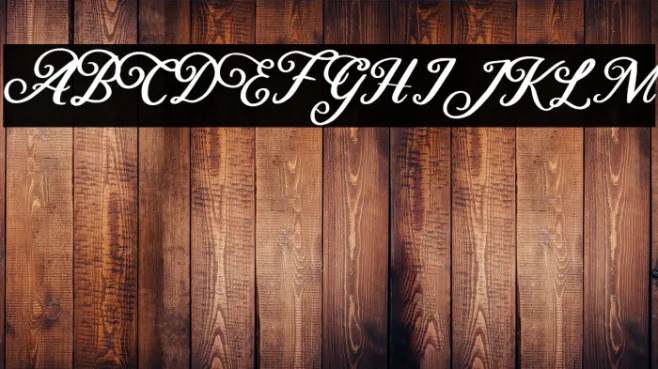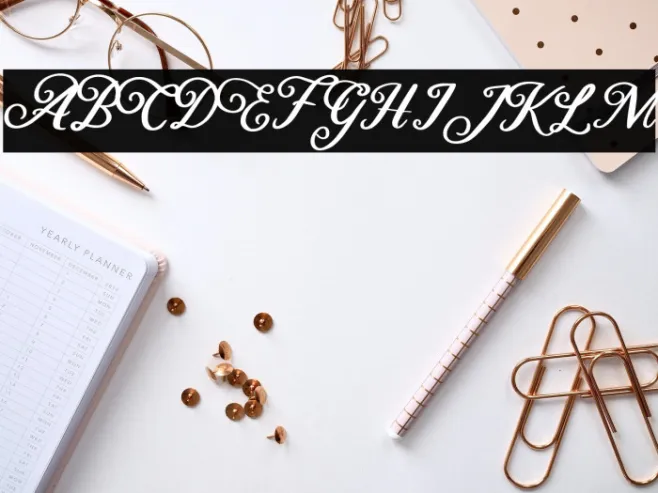
OllsonFREE Font
This font features an elegant and flowing script style, characterized by its intricate and decorative curves. The uppercase letters are particularly ornate, with loops and swirls that give a sense of sophistication and grace. The lowercase letters maintain a consistent flow, with smooth connections between each character, enhancing readability while retaining an artistic flair. The overall design is reminiscent of classic calligraphy, making it suitable for formal and decorative applications. The font's bold strokes and high contrast between thick and thin lines add to its visual impact, making it stand out in various design contexts.
An elegant, flowing script font with decorative curves and high contrast.
- Font: OllsonFREE
- Proposed Projects: Ideal for wedding invitations, elegant branding, greeting cards, and decorative headings.
- Category: Script
- Overall Style: Classic
- Use Case: Headlines, Logos, Decorative text